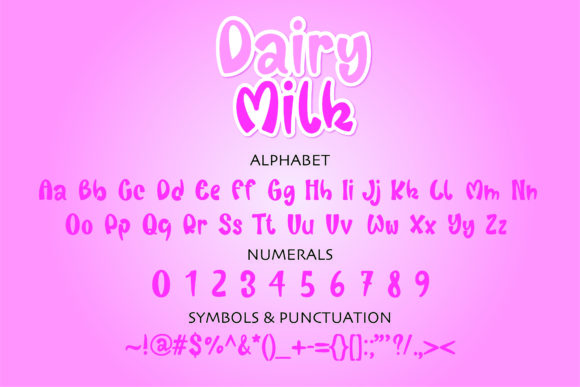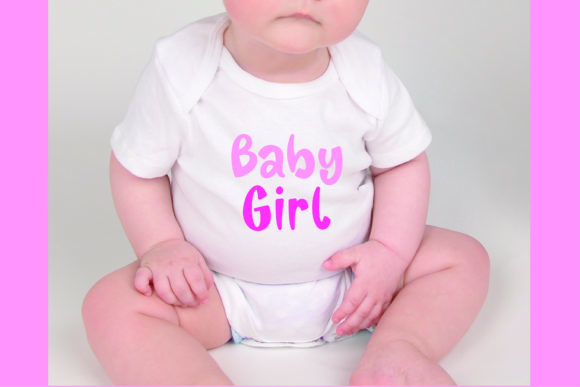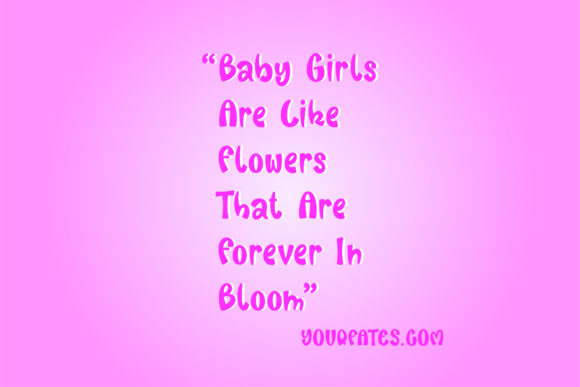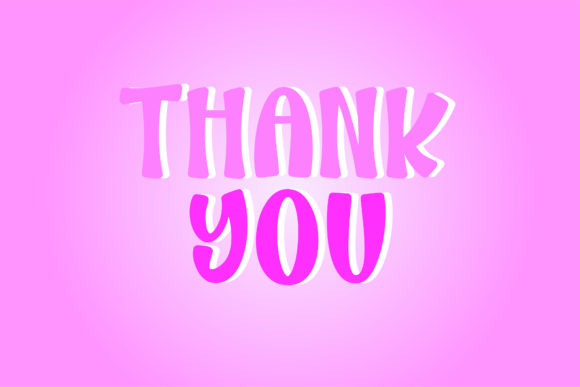
About Dairy Milk Font
Dairy Milk is a lovely handwritten font. Get creative with its bouncy, charming style and add it to each of your inspired ideas. It looks stunning on wedding invitations, thank you cards, quotes, greeting cards, logos, business cards, and every other design which needs a handwritten touch.